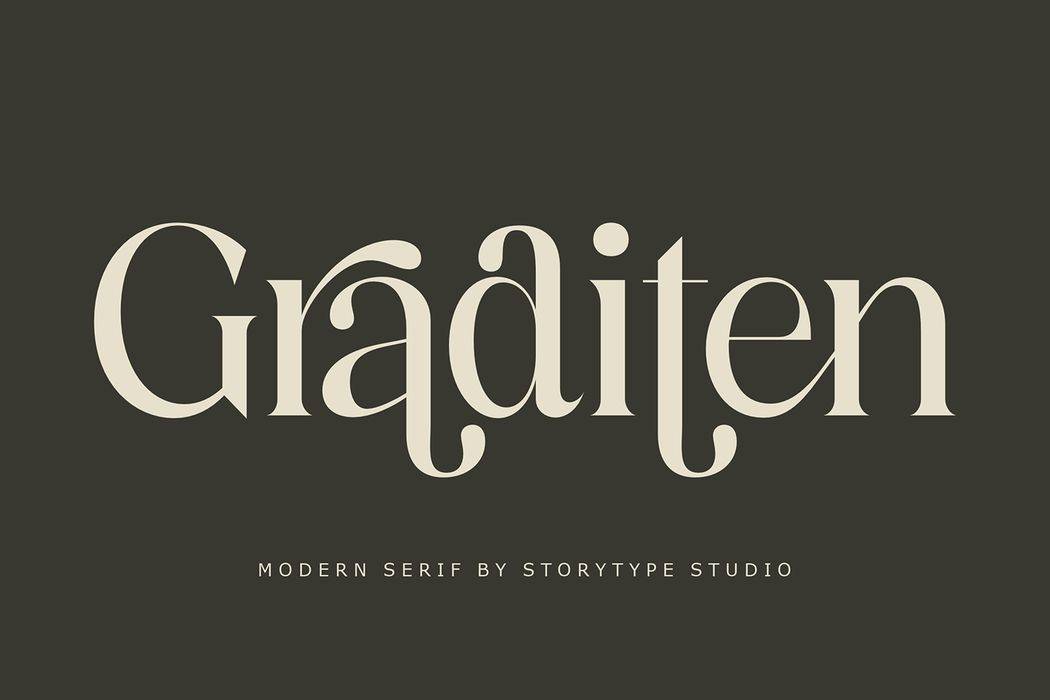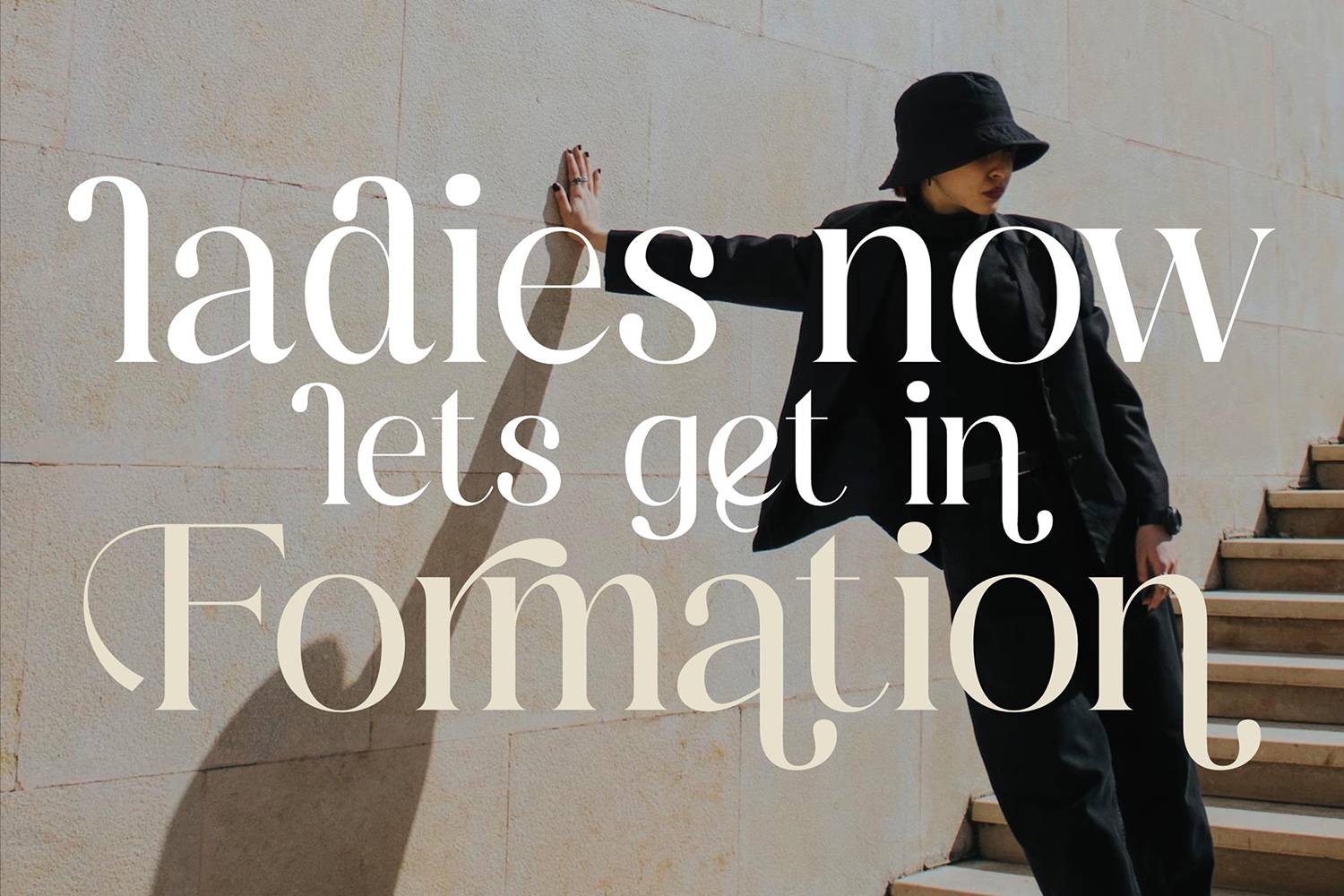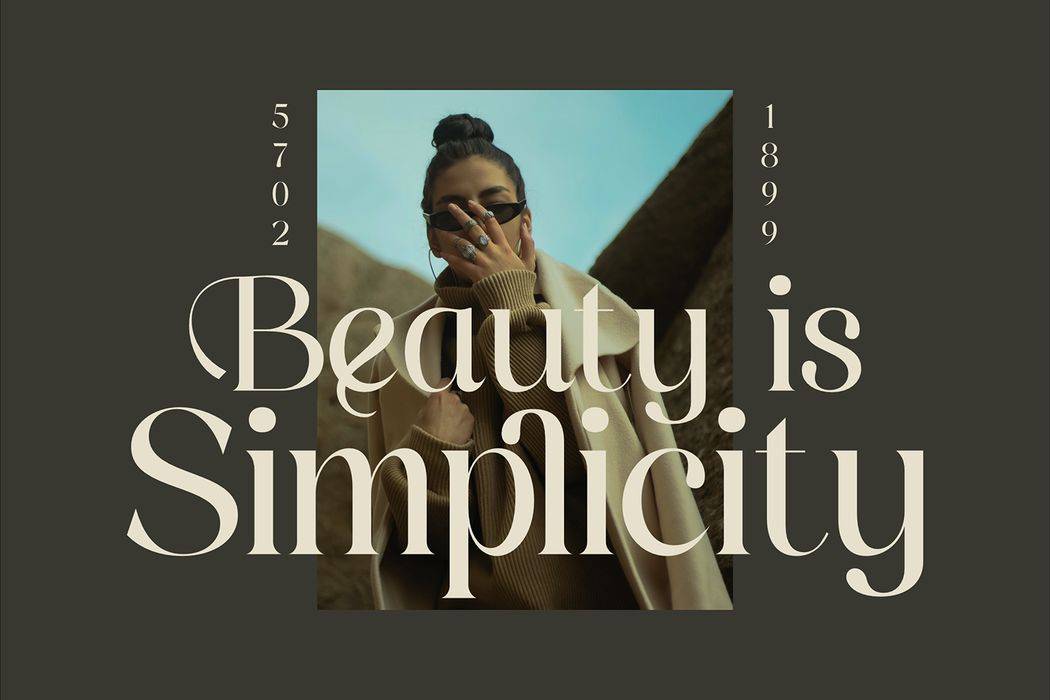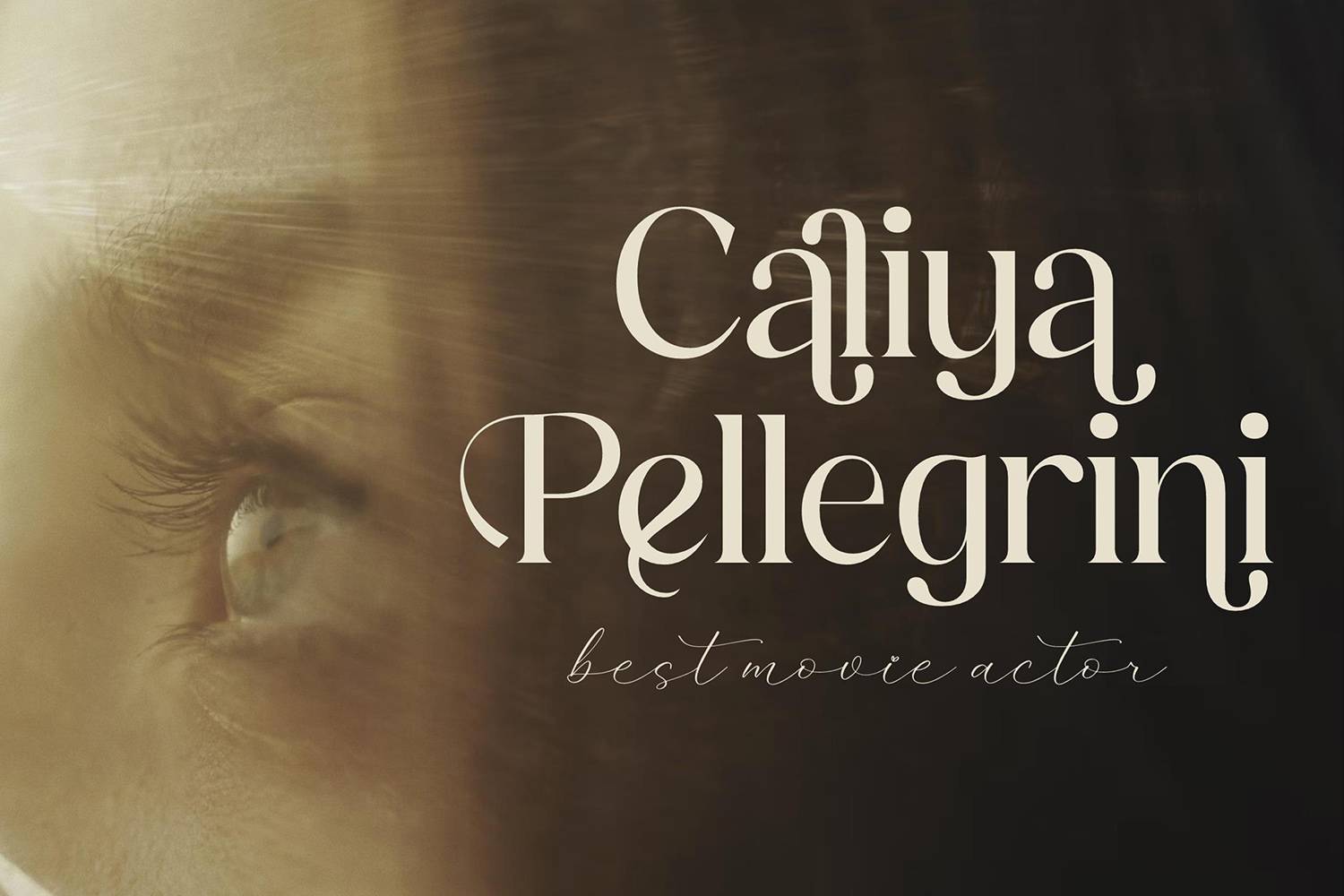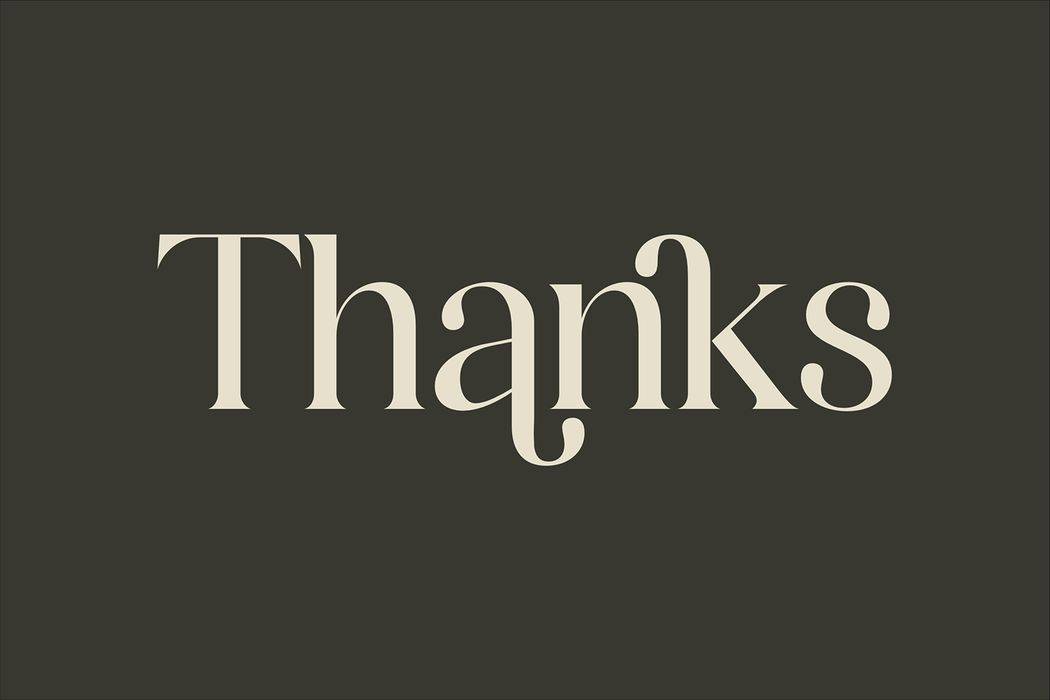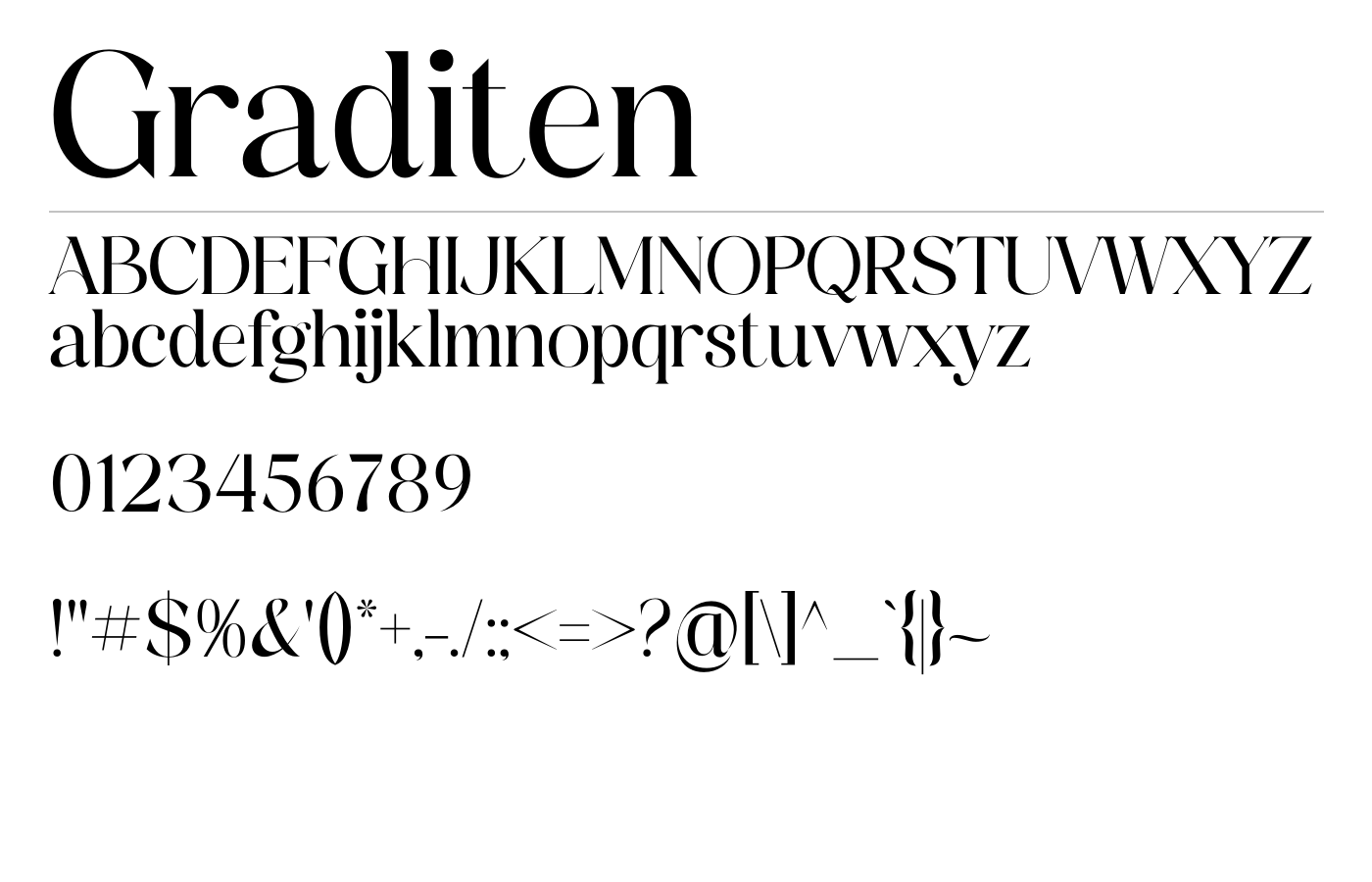
Graditen is an elegant serif font characterized by high contrast between thick and thin strokes and delicate, sharp serifs that give it a refined, sophisticated appearance. Its tall, narrow letterforms paired with classic details make it ideal for luxury branding, editorial headlines, and upscale packaging where a timeless yet modern feel is desired. This font works best in contexts that require a stylish and polished look, conveying professionalism and elegance.
Graditen Font
About Graditen Font
| Font family | Graditen Font |